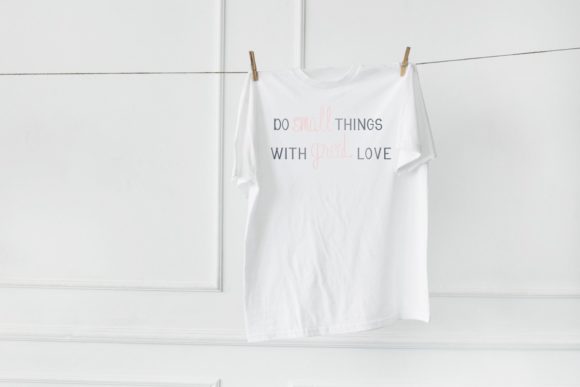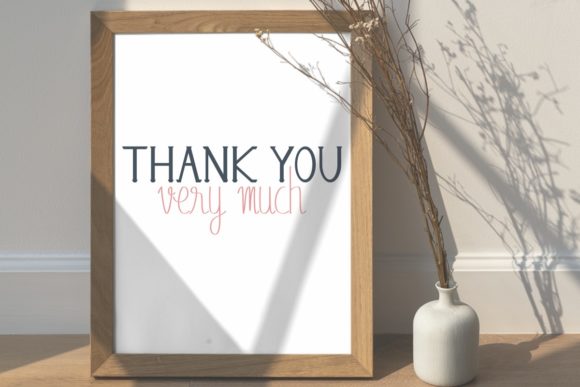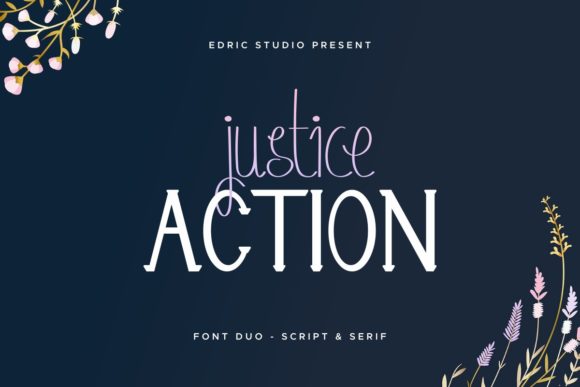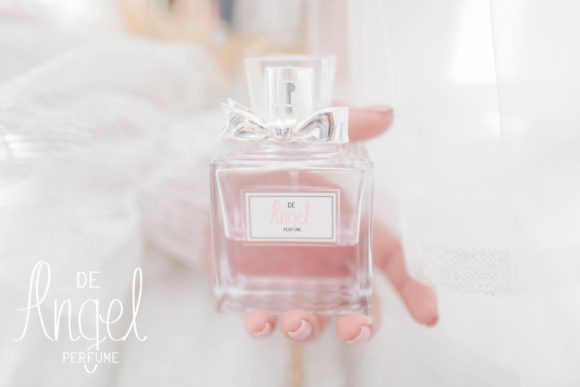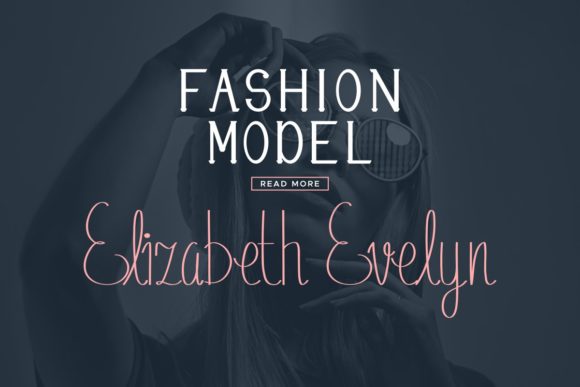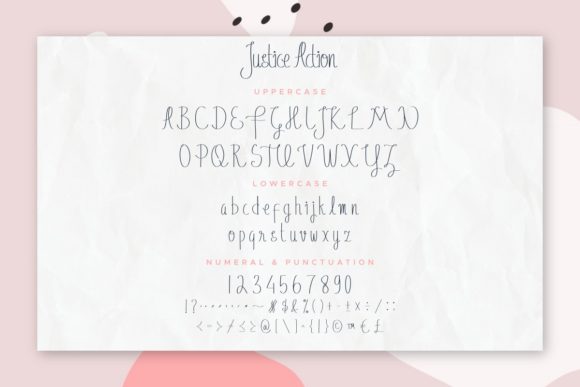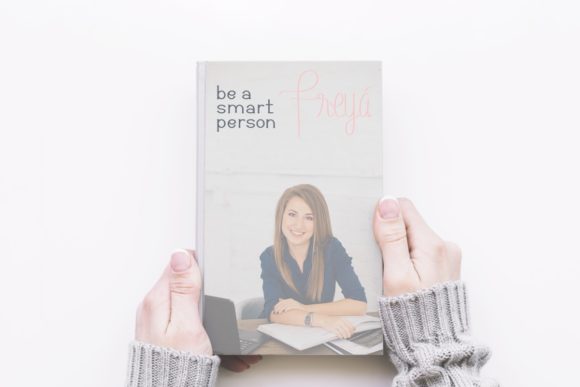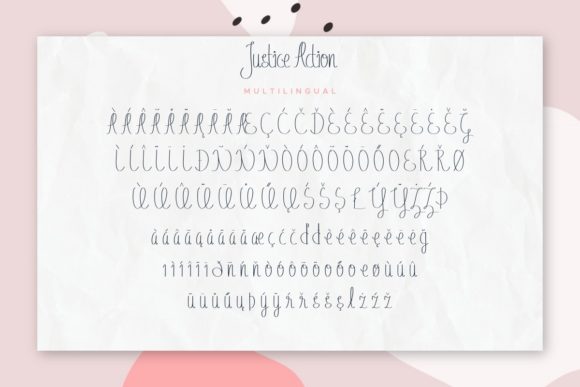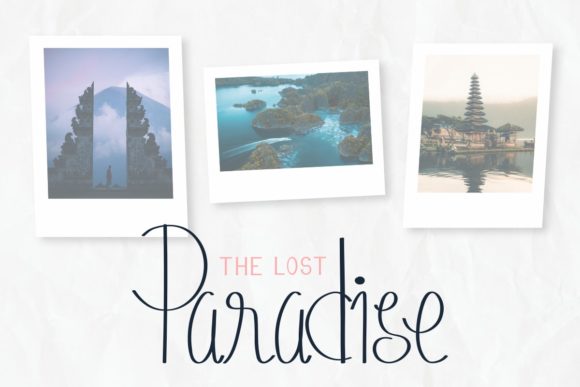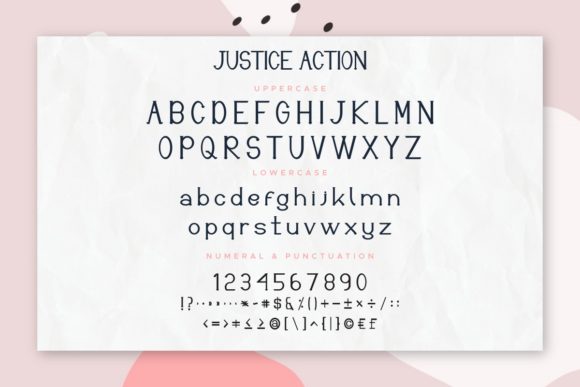
Justice Action Font
About Justice Action Font
Justice Action is a spectacular duo font (serif and script). Incredibly versatile, this font fits a wide pool of designs, elevating them to the highest levels. Add this font to your favorite creative ideas and notice how it makes them come alive!